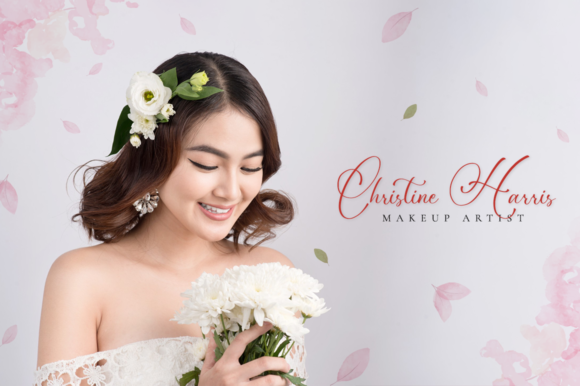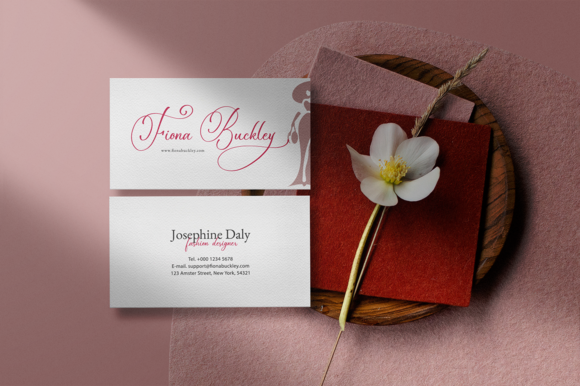
Romantically Font
db-ku.com - Script & Handwritten -- Romantically is an exquisite handwritten font, masterfully designed to become a true favorite. This font is PUA encoded which means you can access all of the amazing glyphs and ligatures with ease!